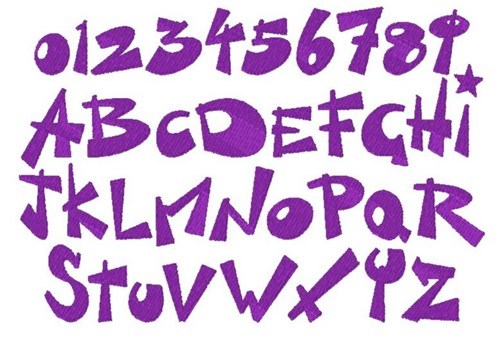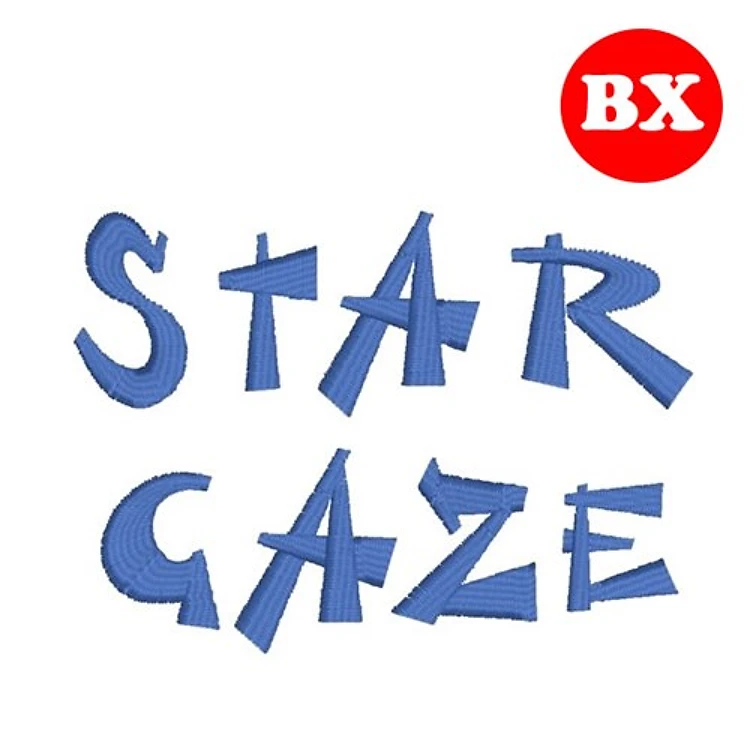
Star Gaze Embrilliance Embroidery Font - Playful Decorative Lettering - BX font by Unicorn Creatives and other embroidery fonts available at EmbroideryDesigns.com.
Unicorn Creatives is happy to present Star Gaze Embrilliance Embroidery Font - Playful Decorative Lettering - BX font machine embroidery font which has Playful decorative machine embroidery font with 3D-like letters in bright blue, ideal for fun projects on bags or jackets. Available in BX font, Embrilliance, and other formats. included. If you would like to view more embroidery fonts and alphabets please search our embroidery fonts page.
Star Gaze Embrilliance Embroidery Font - Playful Decorative Lettering - BX font